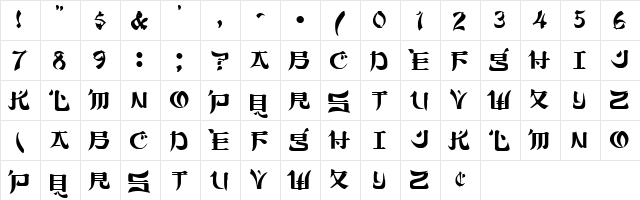
EchoCaps Normal
Style: Normal
Design Context for EchoCaps
EchoCaps is a composed and adaptable typeface that performs quietly and consistently across a wide range of design contexts.